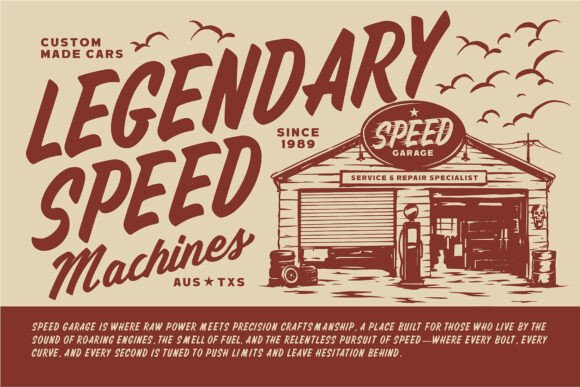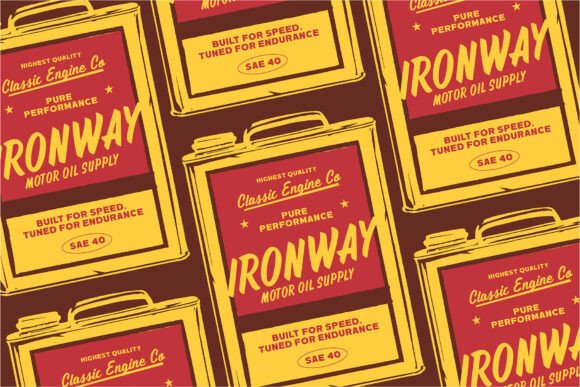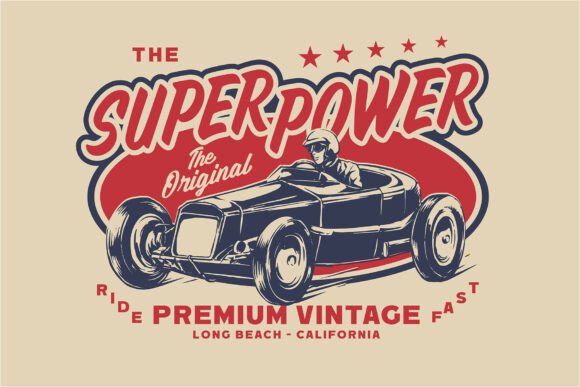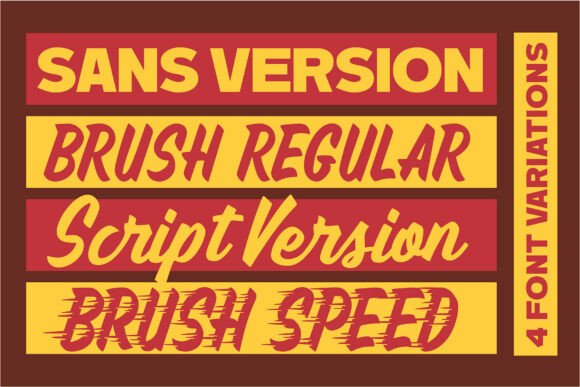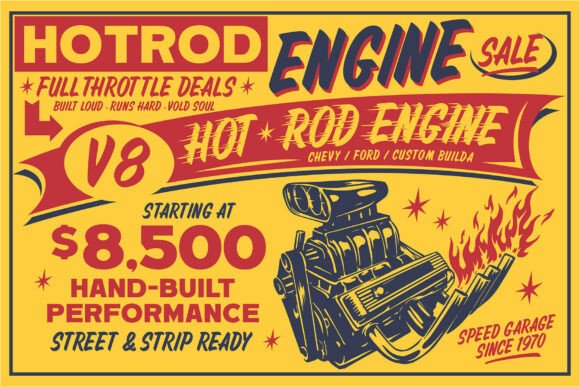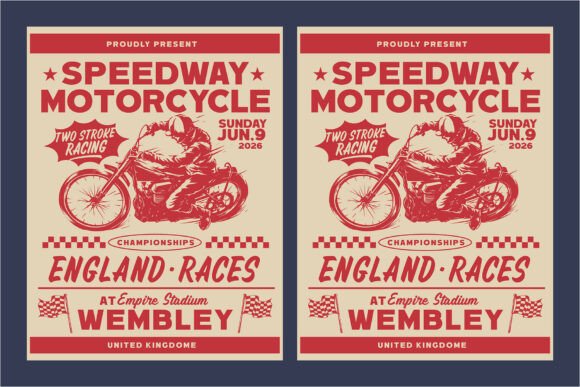
Getting Ready to Shift Your Design into High Gear with Hotrod Font
Imagine you’re rummaging through your grandfather’s old garage, surrounded by dusty racing posters and vintage car parts. As you flip through the yellowed pages, one particular poster catches your eye – the bold, eye-catching typography that screams speed and adrenaline. That’s the essence of Hotrod Font, a free download that’s about to take your creative project to the next level.
As a designer, you’re always on the lookout for that special something that sets your work apart from the rest. Hotrod Font delivers with its high-quality, transparent background, perfect for adding a touch of nostalgia to your next design. With its bold strokes and dynamic angles, this retro display collection is built to stand out in headlines and large layouts, making it an invaluable resource for any creative project.
Key Features of Hotrod Font
- High-quality design: The Hotrod Font is a premium design resource ideal for creative projects, offering a unique and stylish look.
- Unique characteristics: The Hotrod Font boasts a distinctive, hand-drawn style with bold lines and playful typography, making it perfect for creative projects.
Honest Review: Hotrod Font
I recently stumbled upon the Hotrod Font and I must say, it’s a unique addition to any design project. As a designer, I appreciate high-quality design resources that can add a touch of personality to a creative project. This font definitely delivers.
What works well: ✨ The font has a bold, energetic feel that’s perfect for projects that require a fun and playful vibe. The transparent background allows for easy layering and manipulation, making it a great design resource for digital artists. I also appreciate the fact that it’s available for free download, making it accessible to designers of all skill levels.
What doesn’t: ⚠️ While the font is bold and eye-catching, it may not be suitable for all types of projects. For example, it may be too overpowering for subtle or minimalist designs. Additionally, the font’s unique style may not be to everyone’s taste, so it’s essential to consider your target audience before using it.
Overall, I’m impressed with the Hotrod Font. It’s a high-quality design resource that can add a lot of character to a creative project. With its bold style and transparent background, it’s a great choice for designers who want to add some personality to their work.
- Perfect for bold, playful designs
- May be overpowering for subtle designs
- Style may not be to everyone’s taste
Tips for Getting the Most Out of Hotrod Font
Use a transparent background to make the font more versatile. Experiment with different font sizes and colors to create a unique design. Also, combine the Hotrod Font with other design elements, such as images and shapes, to create a visually appealing design.
The Hotrod Font is ideal for creative projects, such as logo designs, social media graphics, and brochures. It’s also perfect for use in presentations, reports, and other business materials. With its high-quality design and free download option, the Hotrod Font is a valuable design resource for any creative project.